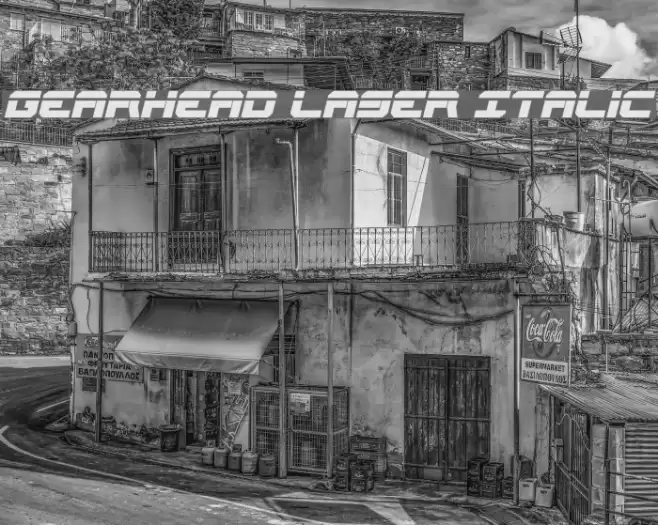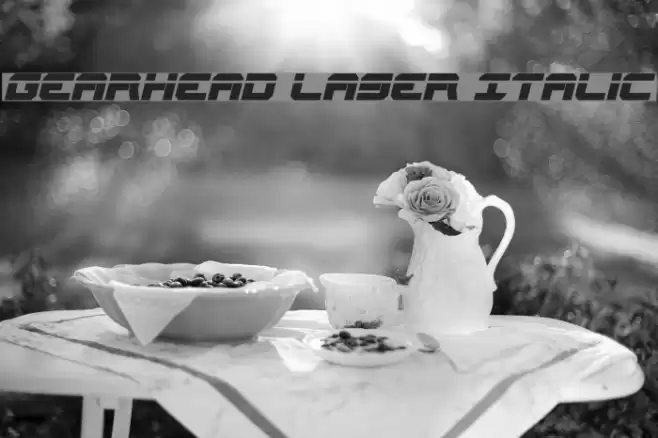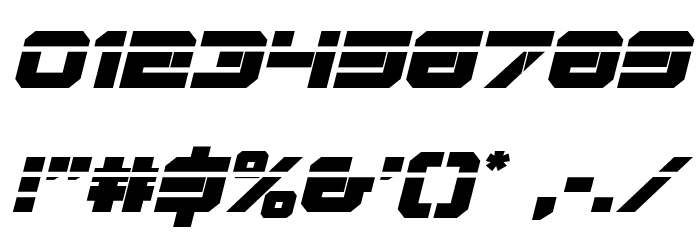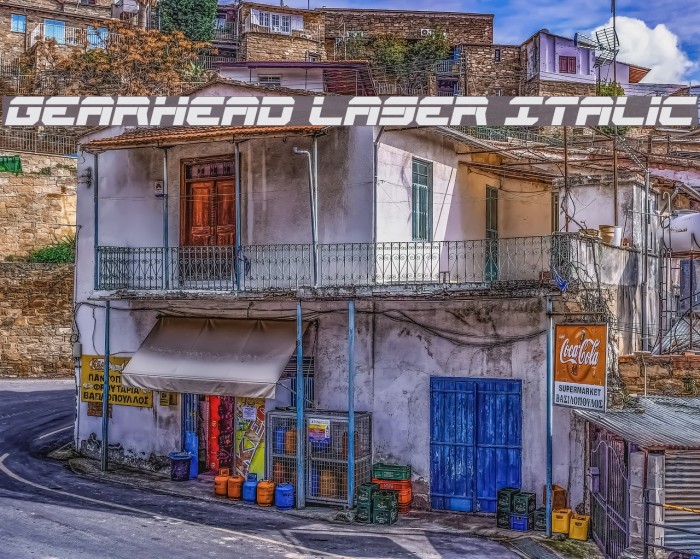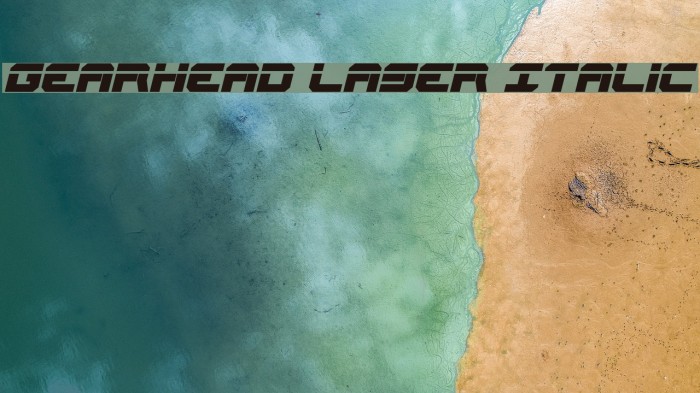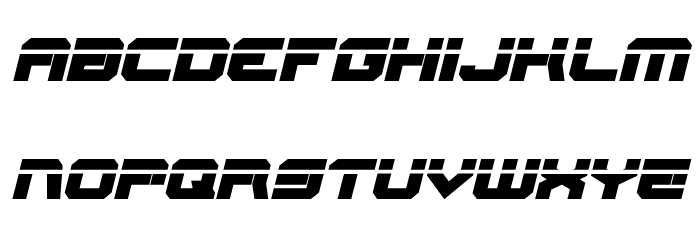
Gearhead Laser Italic Font
Gearhead Laser Italic Description
This font features a futuristic and angular design, characterized by its bold and geometric letterforms. The characters are sharply cut with a distinct slant, giving it a dynamic and energetic appearance. The uppercase and lowercase letters maintain a consistent style, with the uppercase being more prominent. The numbers and special characters follow the same angular and bold aesthetic, making them stand out. This font's unique style is reminiscent of digital or sci-fi themes, making it suitable for projects that require a modern and edgy look.
A bold, angular, and futuristic font with a dynamic slant from Uncategorized fonts.
- Proposed Projects: Ideal for sci-fi themed designs, video game titles, tech branding, and futuristic posters.